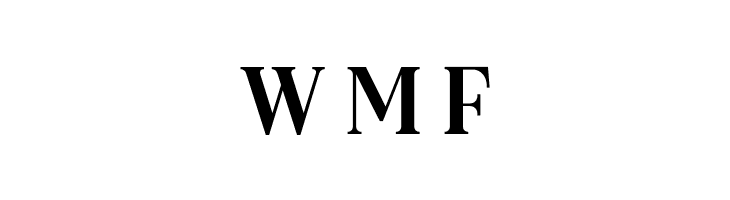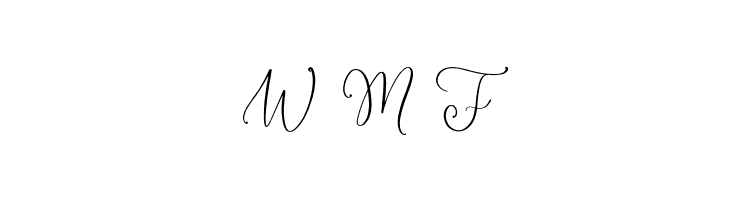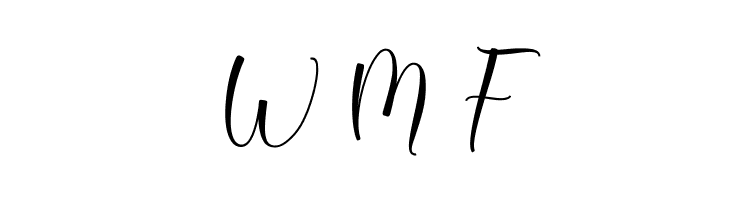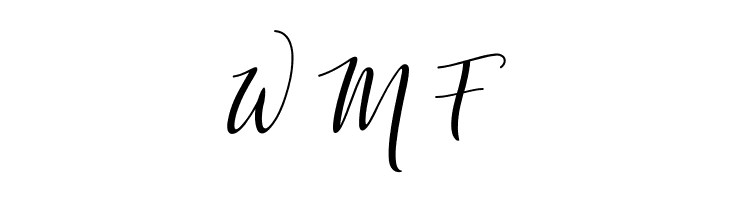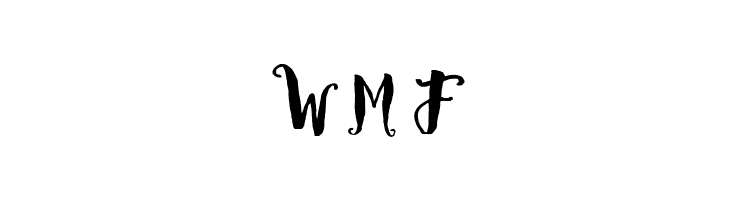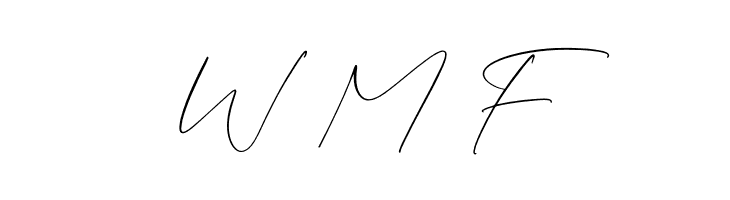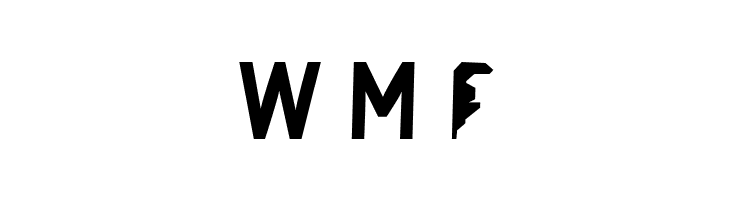
A classic serif font with bold strokes and high contrast, perfect for formal and elegant designs.
An elegant, flowing script font with intricate loops and flourishes.
An elegant, flowing script font with graceful loops and cursive strokes.
A flowing, elegant script font with calligraphic elements and dynamic contrast.
A whimsical, hand-drawn script font with decorative swirls and bold characters.
A bold, handwritten-style font with dynamic and fluid strokes.
A graceful and elegant script font with a handwritten calligraphic style.
A bold, distressed font with a modern and edgy style.
A bold, expressive handwritten font with dynamic strokes and a playful style.
An elegant serif font with flowing lines and a classic aesthetic.